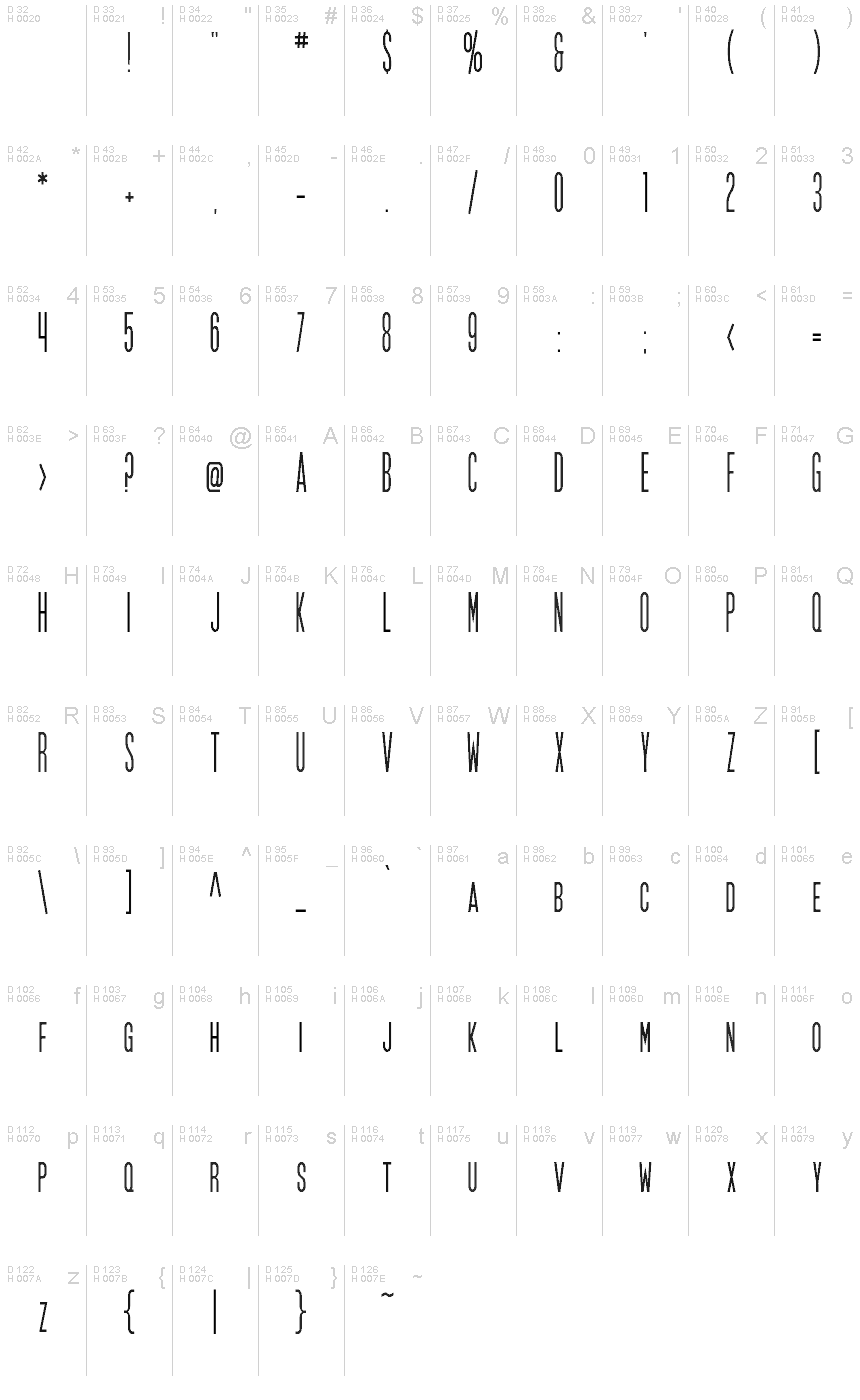
SF Movie Poster Condensed
SF Movie Poster Condensed stands out as a sleek and modern addition to the SF Movie Poster family by ShyFonts Type Foundry. This sans serif font boasts a semi-light weight, paired with an extra-condensed width, creating an elegant and sharp visual impact that is perfect for grabbing attention. Its clean lines and compressed letterforms give it a contemporary edge that is versatile for various design applications.
The condensed style of SF Movie Poster Condensed ensures that it is highly readable even in tight spaces, making it an excellent choice for not only movie posters but also for editorial headlines, graphic prints, and any creative project that requires a touch of sophistication without sacrificing functionality. Its aesthetic appeal lies in its ability to convey messages with clarity while maintaining a stylish flair.
Incorporating this font into your design work can elevate the overall look and feel of your project, whether you're aiming for the drama of the silver screen or the boldness of modern advertising. SF Movie Poster Condensed is designed to make an impact where space is at a premium but style is paramount.
The condensed style of SF Movie Poster Condensed ensures that it is highly readable even in tight spaces, making it an excellent choice for not only movie posters but also for editorial headlines, graphic prints, and any creative project that requires a touch of sophistication without sacrificing functionality. Its aesthetic appeal lies in its ability to convey messages with clarity while maintaining a stylish flair.
Incorporating this font into your design work can elevate the overall look and feel of your project, whether you're aiming for the drama of the silver screen or the boldness of modern advertising. SF Movie Poster Condensed is designed to make an impact where space is at a premium but style is paramount.